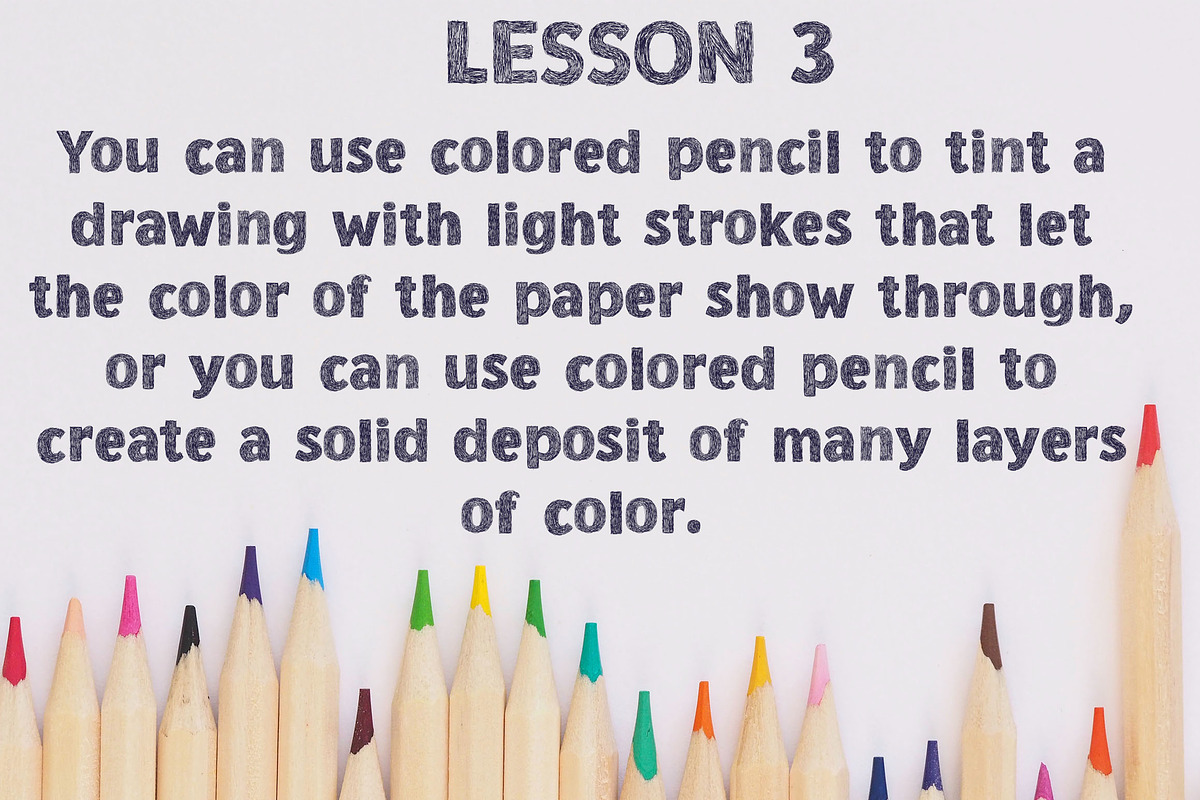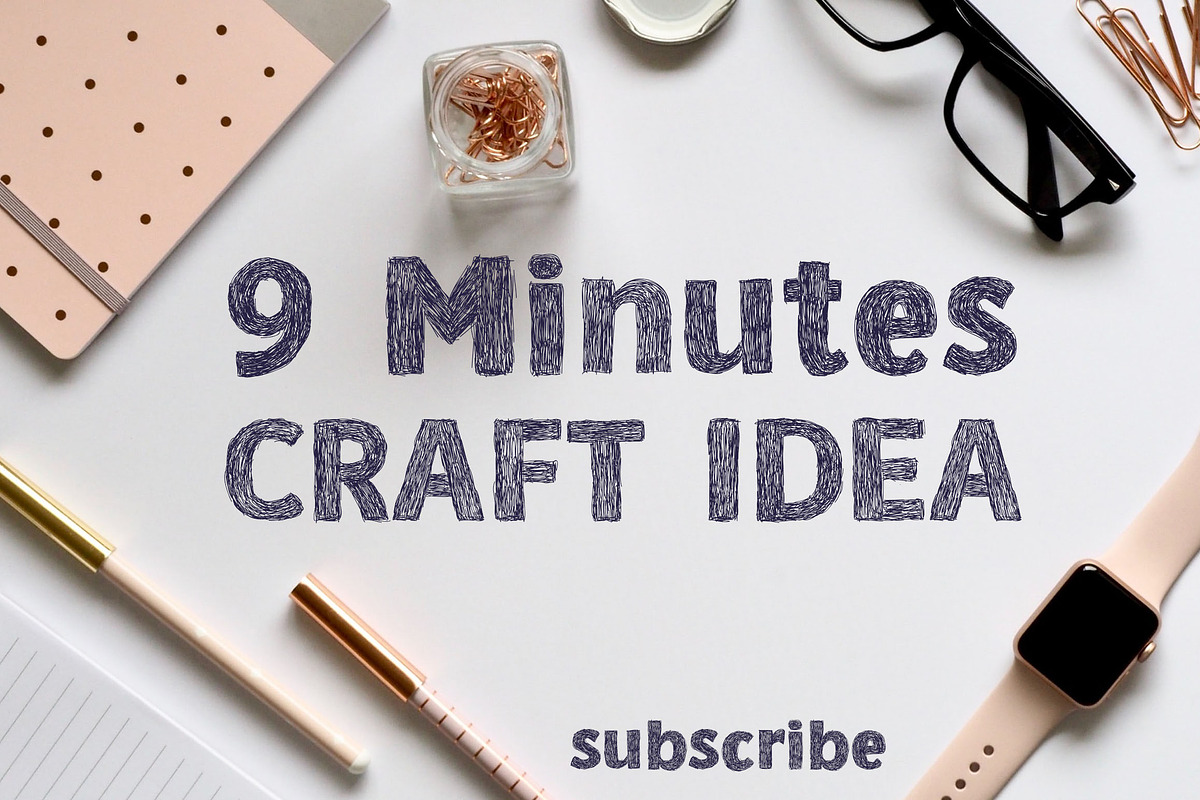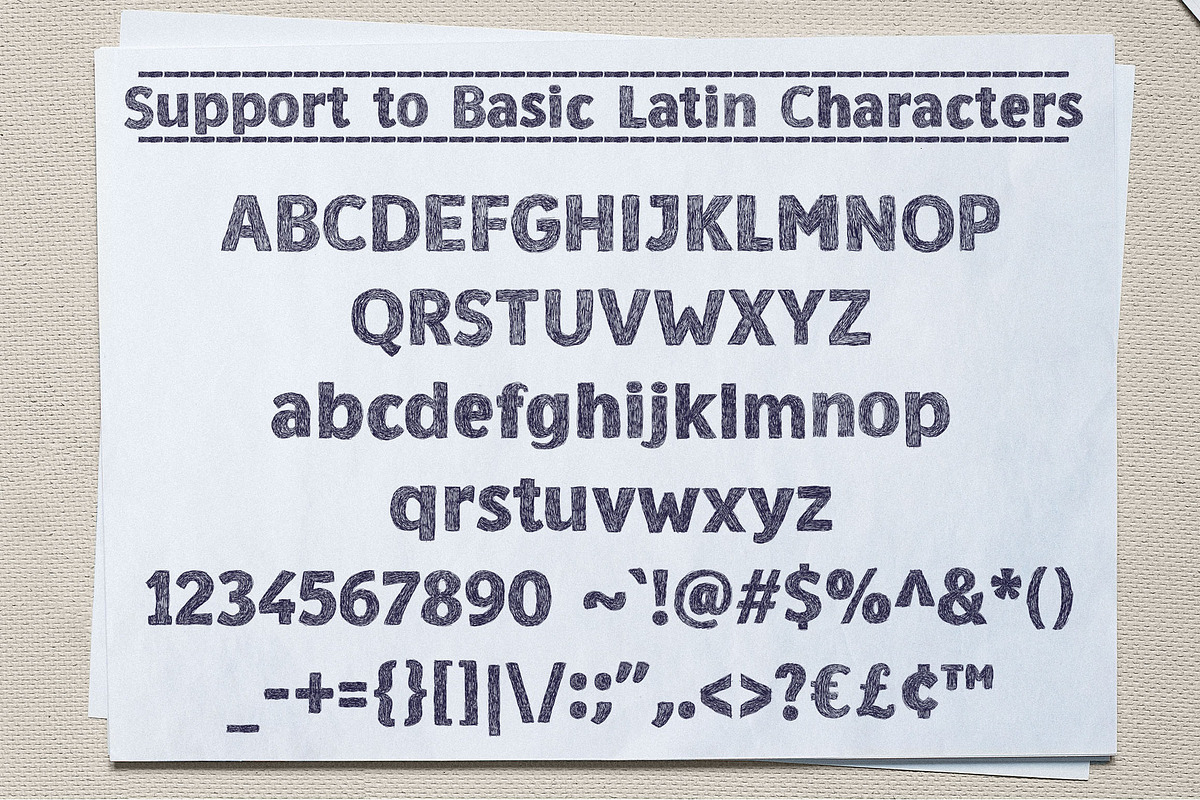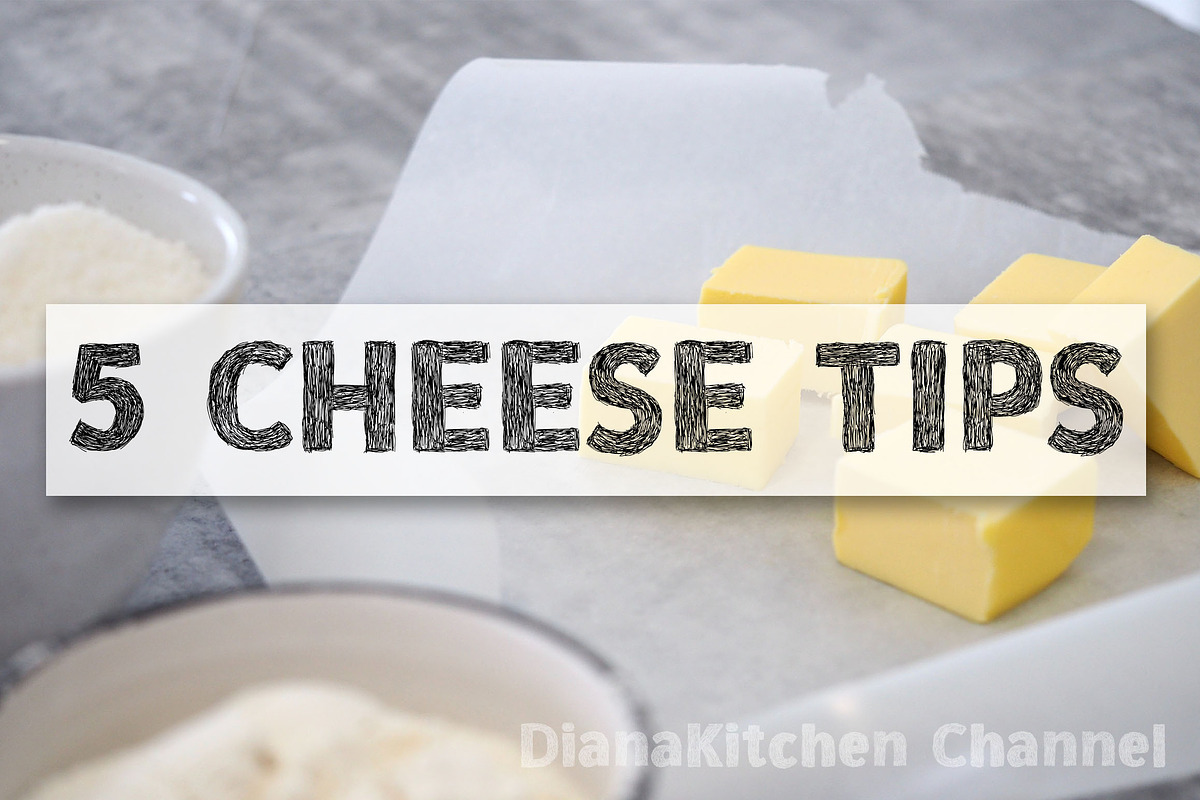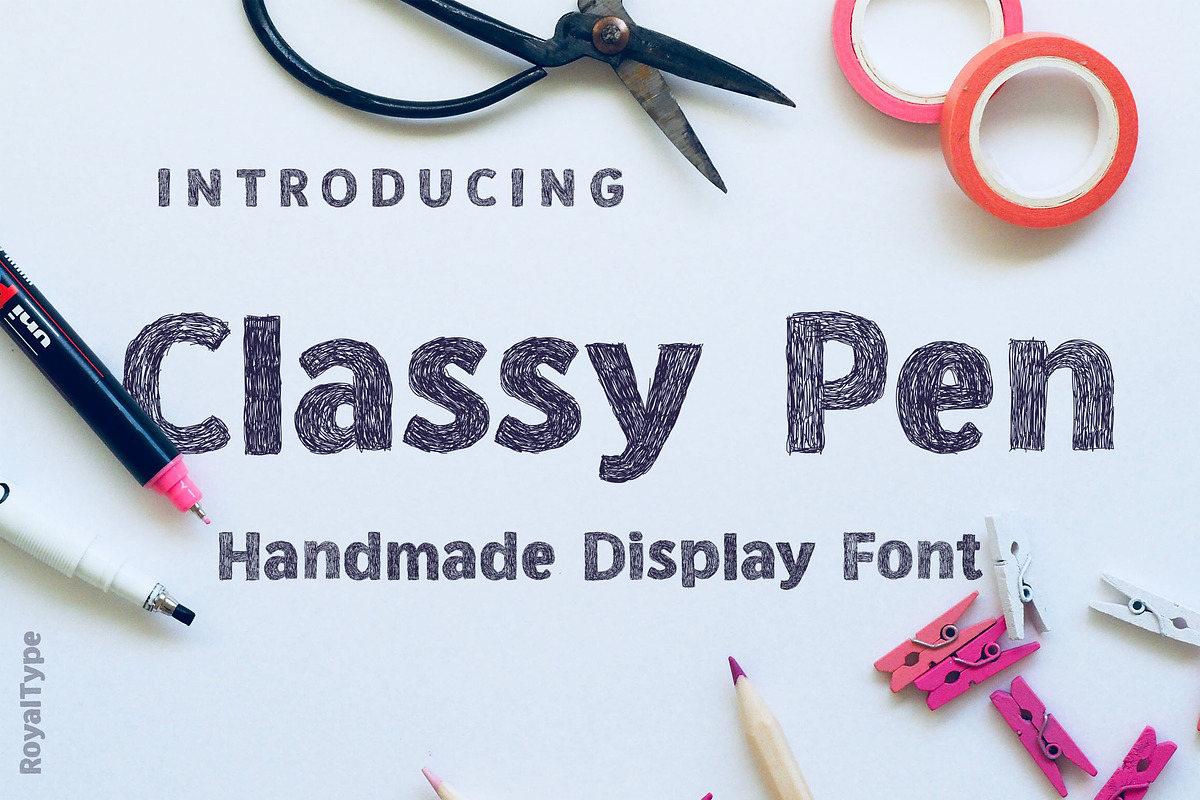
Classy Pen | Scratch Style Font
Introducing my new cool scratch style display font. This font will great for title or subtitle in fancy style. Supported to basic Latin characters (uppercase, lowercase, numeral and symbol). Font file is ClassyPen.ttf font format.
- Supported to basic Latin characters (uppercase, lowercase, numeral and symbol).
Why Classy Pen | Scratch Style Font is worth a look
Classy Pen | Scratch Style Font by Royaltype fits naturally into Branding, posters, packaging, typography.